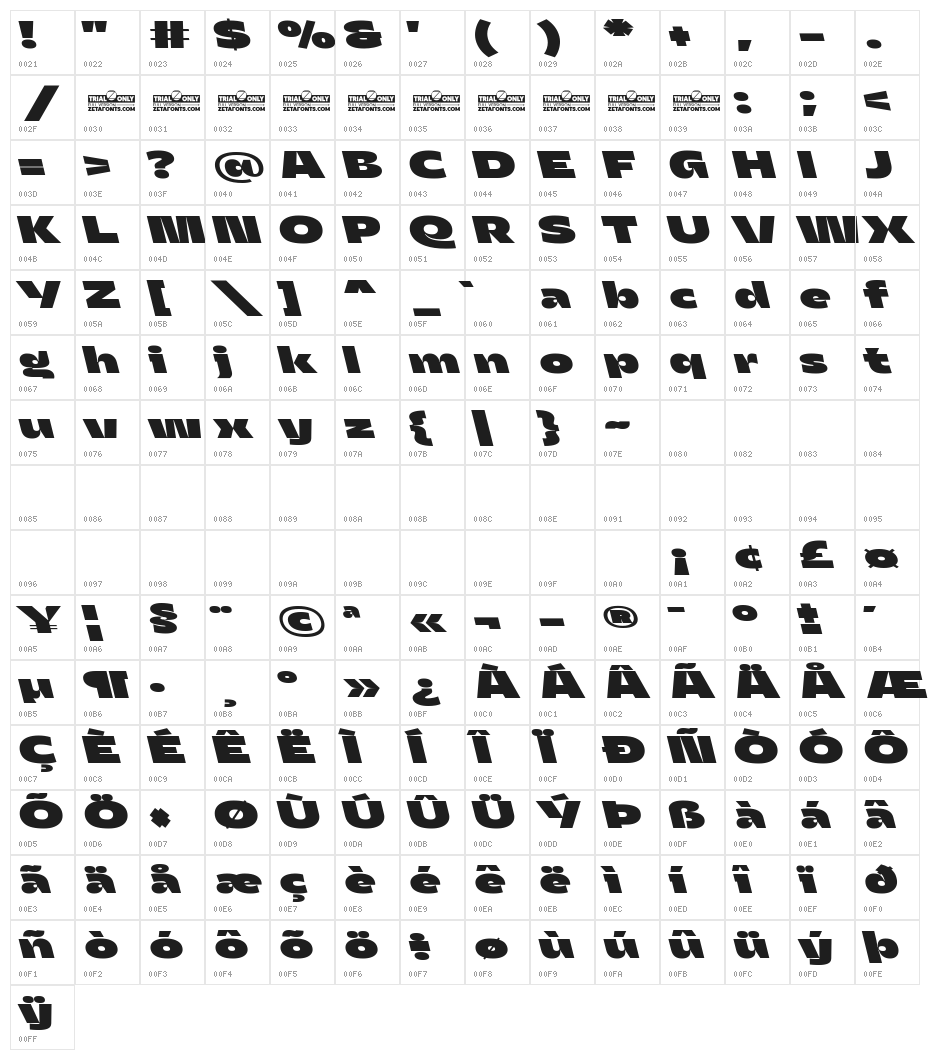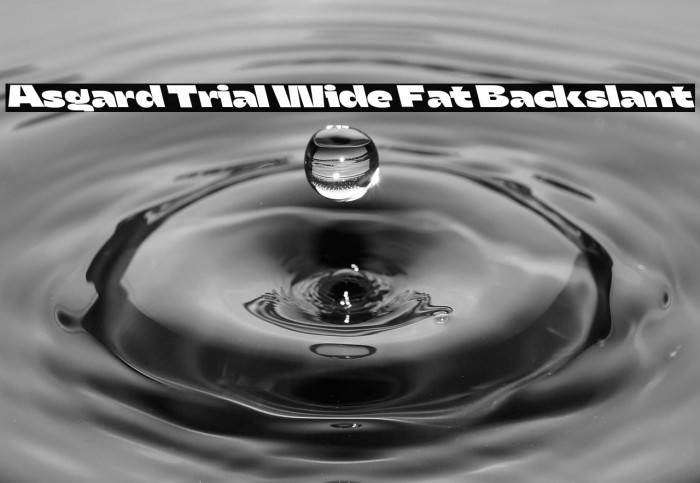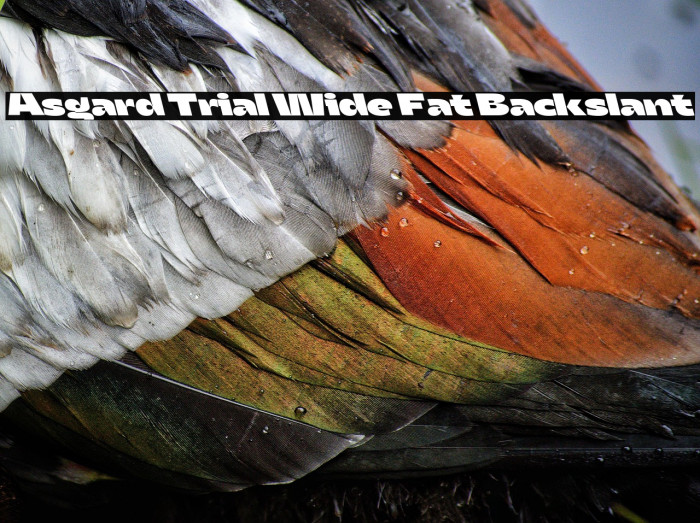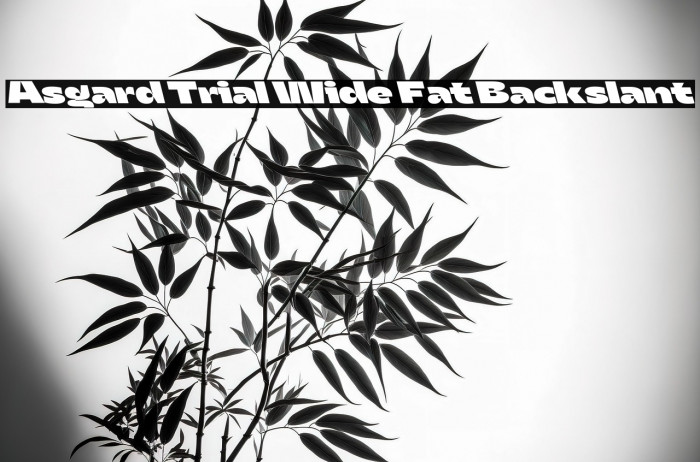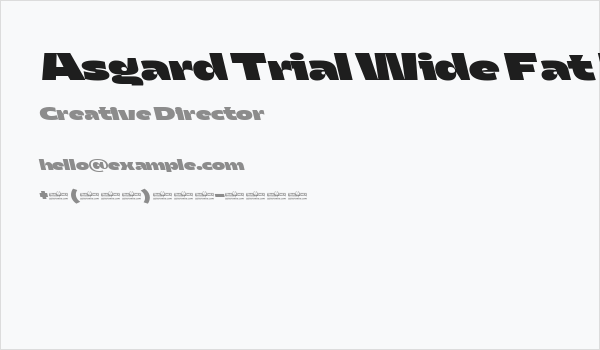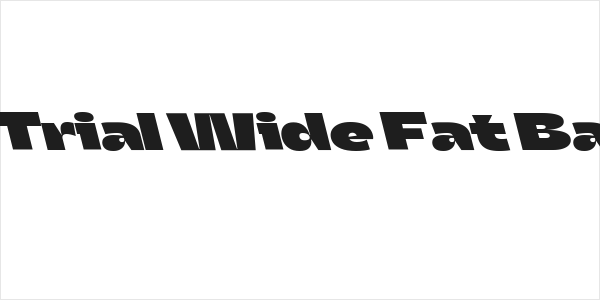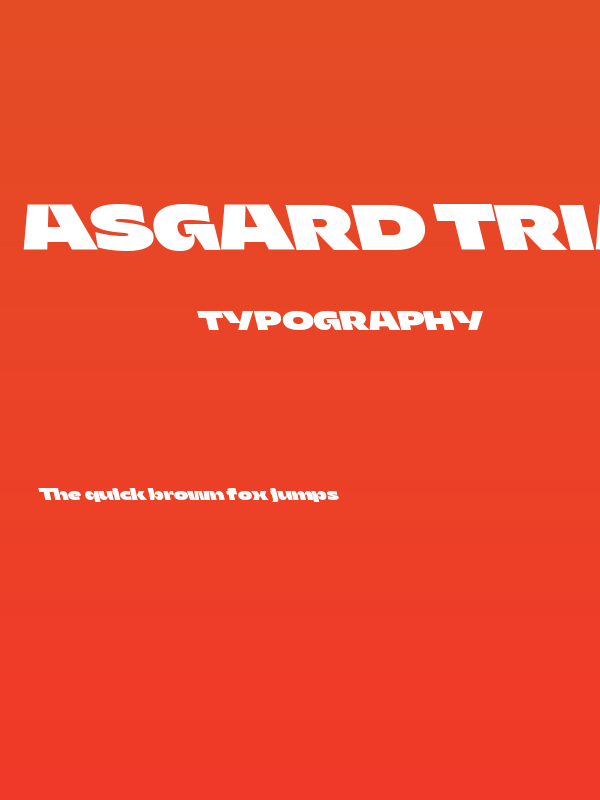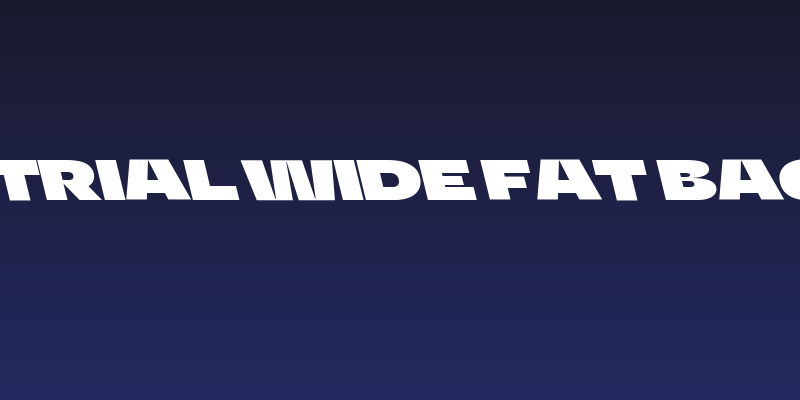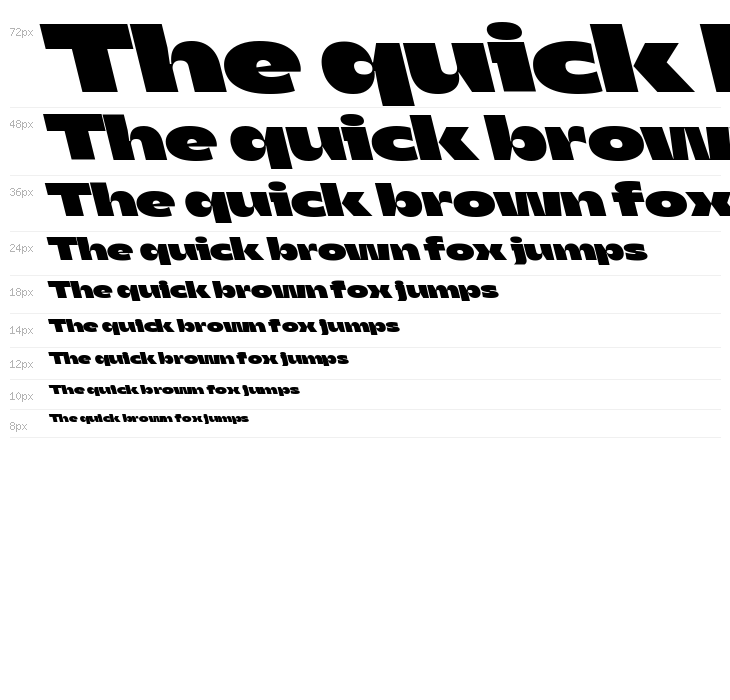
Asgard Trial Wide Fat Backslant Font
Asgard Trial Wide Fat Backslant Description
This font features a bold and wide style with a distinctive backslant, giving it a dynamic and powerful appearance. The characters are heavily weighted, creating a strong visual impact. The design includes both uppercase and lowercase letters, as well as numbers and a variety of special characters. The boldness and width of the font make it ideal for attention-grabbing headlines or titles. The backslant adds a unique twist, setting it apart from more traditional fonts. The spacing between characters is tight, contributing to its compact and impactful look.